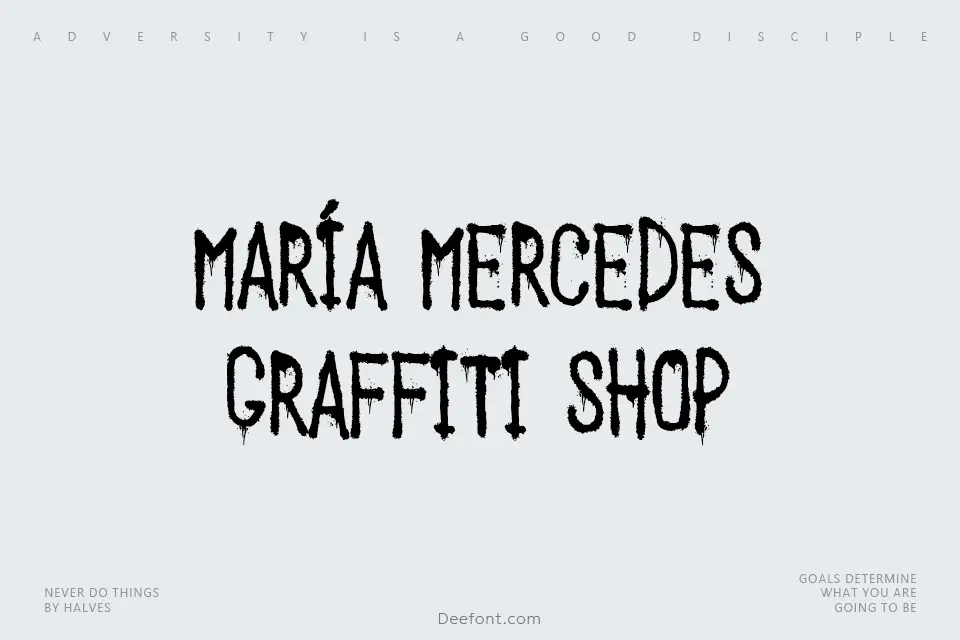
María Mercedes Graffiti Shop Font
María Mercedes Graffiti Shop is a vibrant graffiti typeface created by Barcelona-based designer Woodcutter that captures the dynamic energy of urban street art. With its bold, flowing letterforms and artistic flair, this script font brings creativity and visual impact to posters, flyers, and contemporary design projects. The typeface features 236 glyphs with partial accent support and euro symbols, making it suitable for multilingual applications. Perfect for designers seeking a striking display font that combines playful graffiti aesthetics with professional typographic quality.